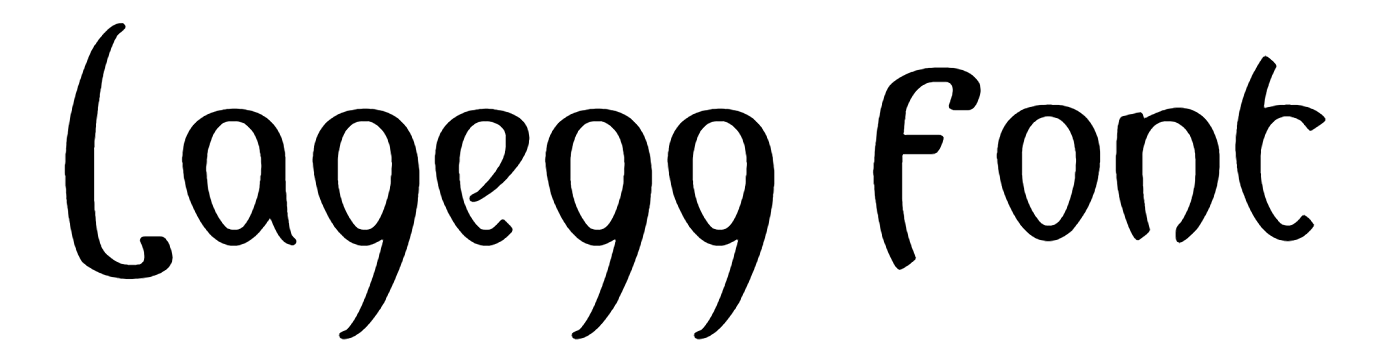
Lagegg
Lagegg is a fancy font created by wates awal and released through KASUKI ( kawula sunda kiwari ) (2014). Bold and full of character, it's built to stand out rather than blend in. You can download it for free and test it with your own words in the preview above.
What You Can Type With Lagegg
You get every letter from A to Z in both cases and all the numbers from 0 to 9, which means Lagegg can handle full sentences, dates and prices. Punctuation is limited, so look at the character map if you need a specific symbol. It doesn't include accented letters such as é or ñ, which makes it an English-only font.
Where Lagegg Works Best
Lagegg is a natural fit for posters, logos and eye-catching headlines. The file has no kerning data, so in logos and big titles check pairs like AV, To and Wa and tighten the spacing by hand. Use it for one standout word or headline and let simpler fonts handle the rest.
Who designed Lagegg font?
Lagegg was designed by wates awal and published by KASUKI ( kawula sunda kiwari ). The copyright line inside the font is dated 2014.
Does Lagegg support accented letters?
No. Lagegg has no accented letters such as é, ñ or ü, so it's best for English text.